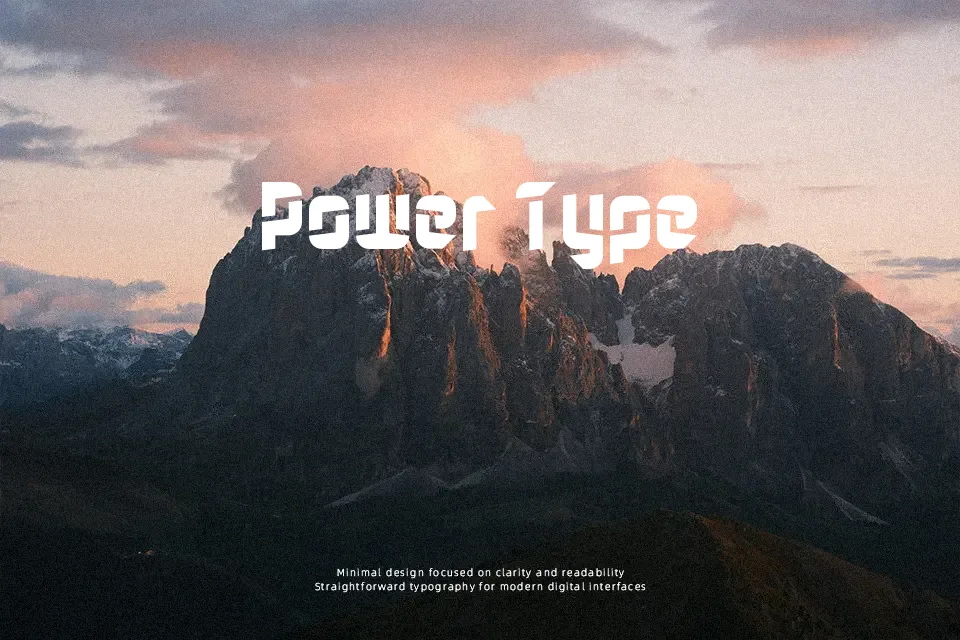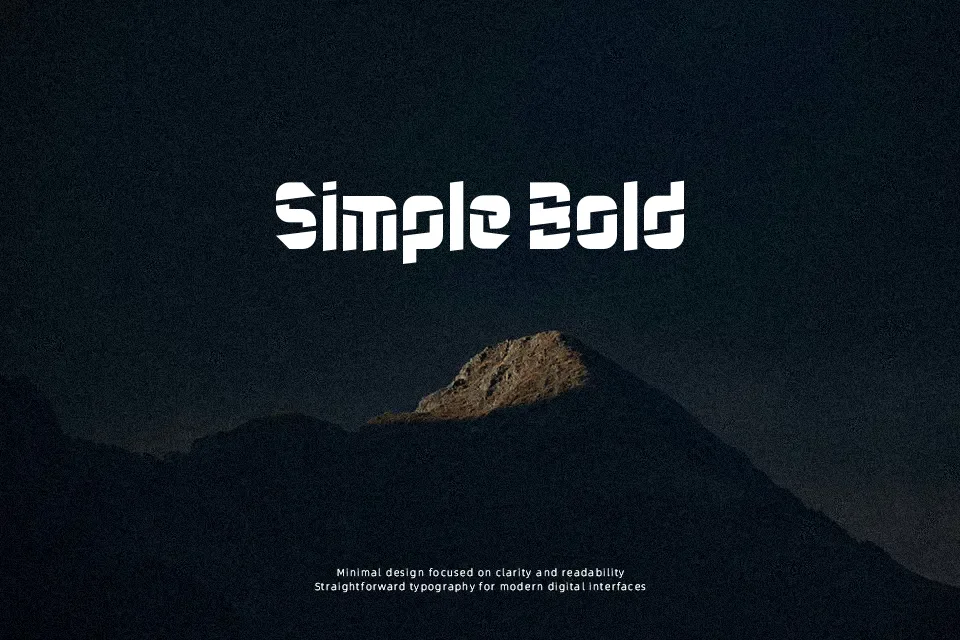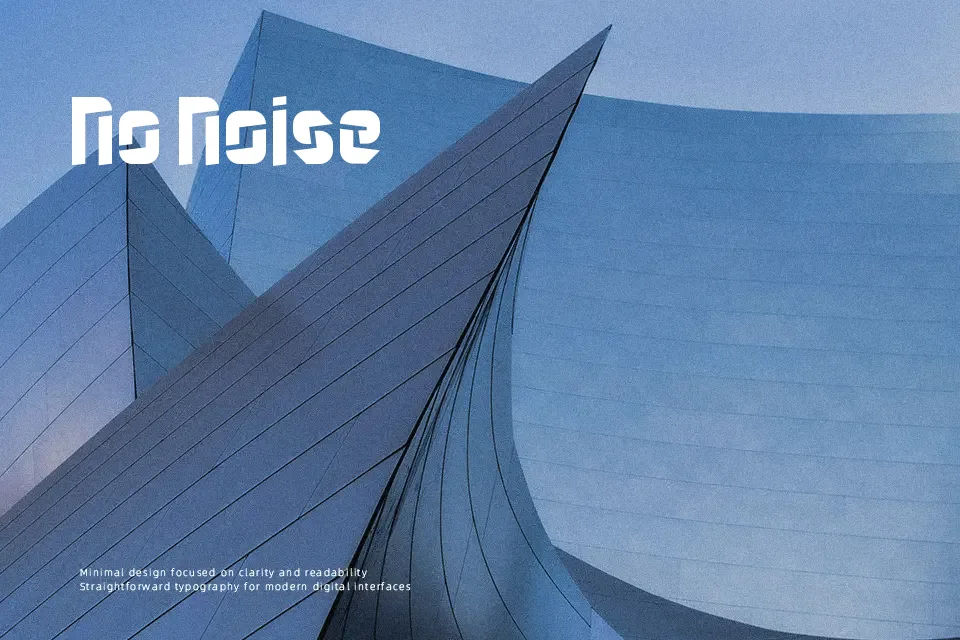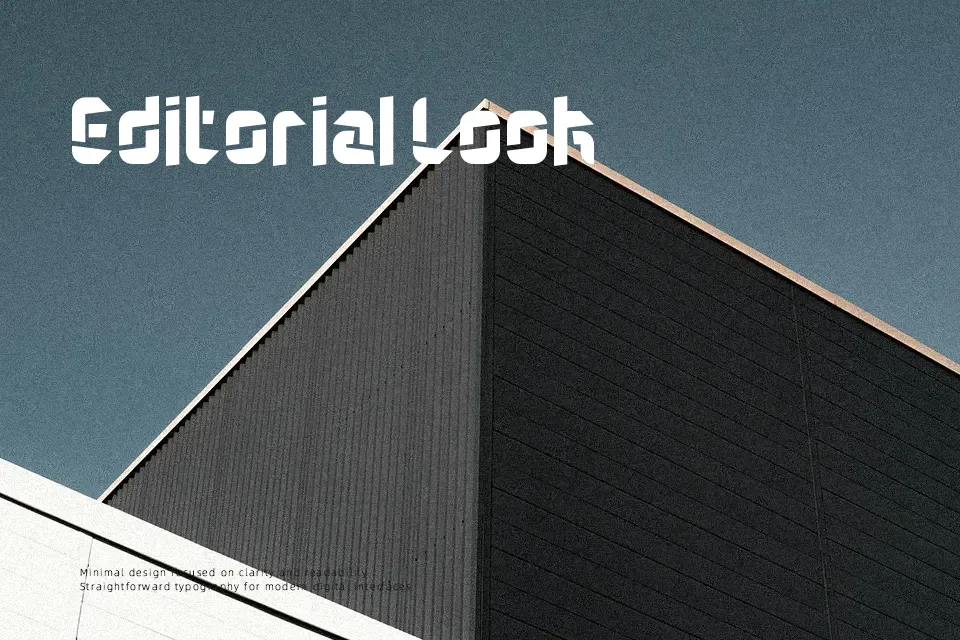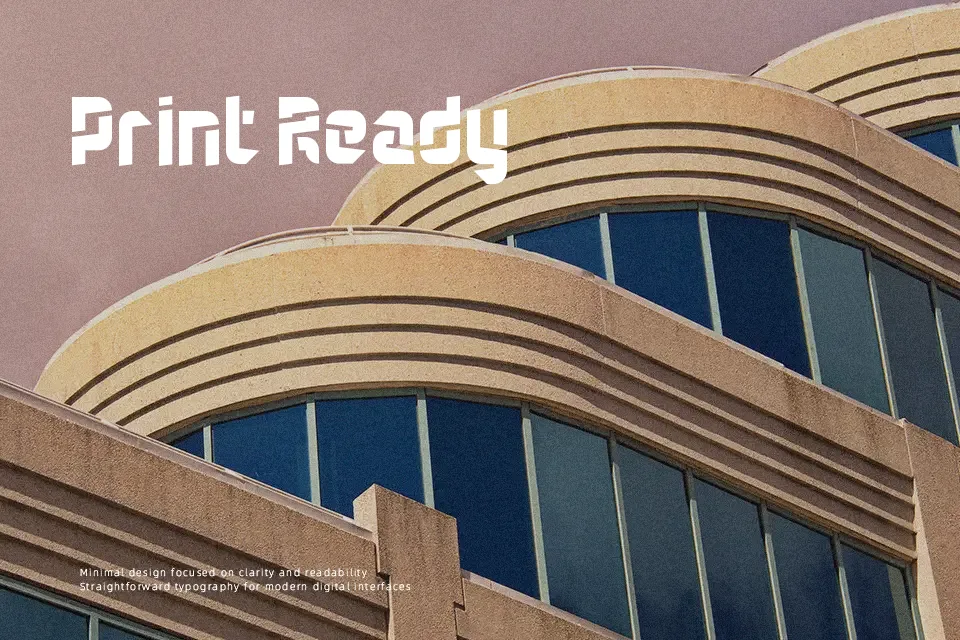
Quartermaster Font
Quartermaster Font presents a highly structured stencil design characterized by aggressive, heavily weighted strokes and distinct geometric bridges. The letterforms carry a rigid, industrial proportion that commands attention across large formats while maintaining a consistent visual rhythm. Due to its deliberate cuts and bold architecture, the spacing remains balanced in display settings, ensuring strong visibility in striking poster designs or robust outdoor gear branding. The sharp structural breaks become less effective at smaller sizes, where the stencil gaps can interrupt reading flow. Ultimately, the heavy strokes improve visibility in prominent headlines but restrict the typeface from functioning comfortably in extended paragraph text.
military surplus packaging
outdoor equipment branding
esports team logos
action movie posters
Perfect for branding, packaging, and poster, with a bold and display style.